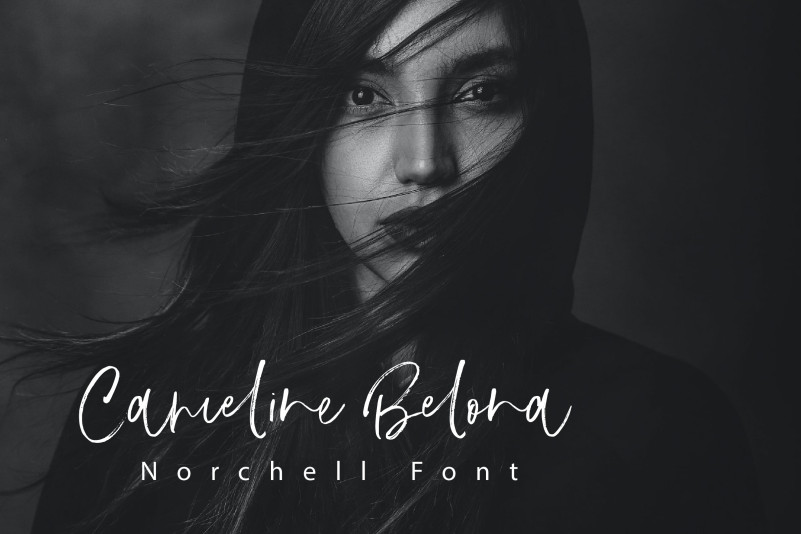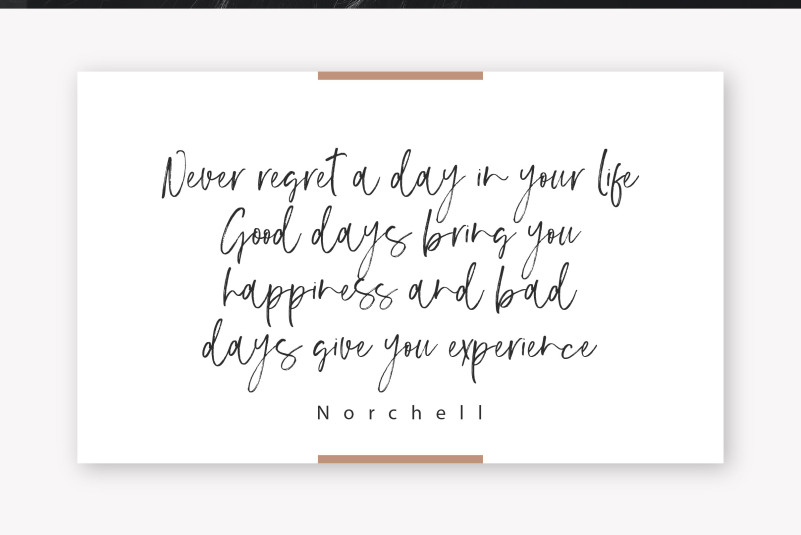
Norchell Font
Norchell Brush Font is a font that embodies sophistication and refinement. With its intricate curves and graceful flourishes, this script font elevates any design to a higher level of elegance. It’s the perfect choice for high-end projects like wedding invitations and logos, sure to impress even the most discerning audience. This font is PUA encoded which means you can access all glyphs and swashes effortlessly!
– Uppercase, Lowercase, Numeral & Punctuation
– Alternate Letters, Ligature & Swash/Tail